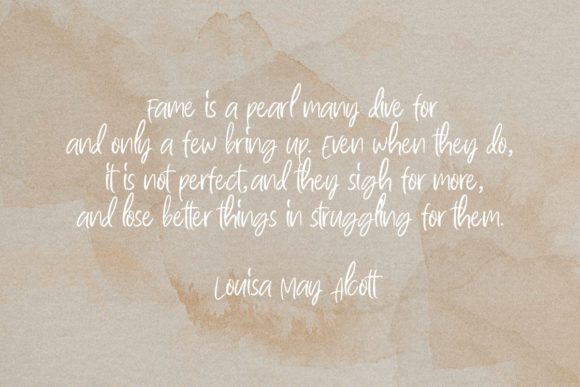
About Magipie Font
Magipie is a relaxed, stylish and adaptable script font. It will add a luxury spark to any design project that you wish to create! Fall in love with its incredibly versatile style and use it to create spectacular designs!